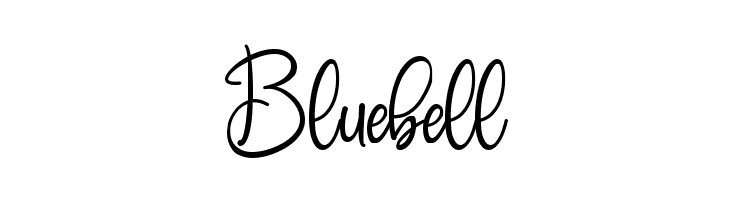
A lively and dynamic script font with fluid, interconnected letterforms.
A graceful, cursive font with thin, flowing strokes and elegant connections.